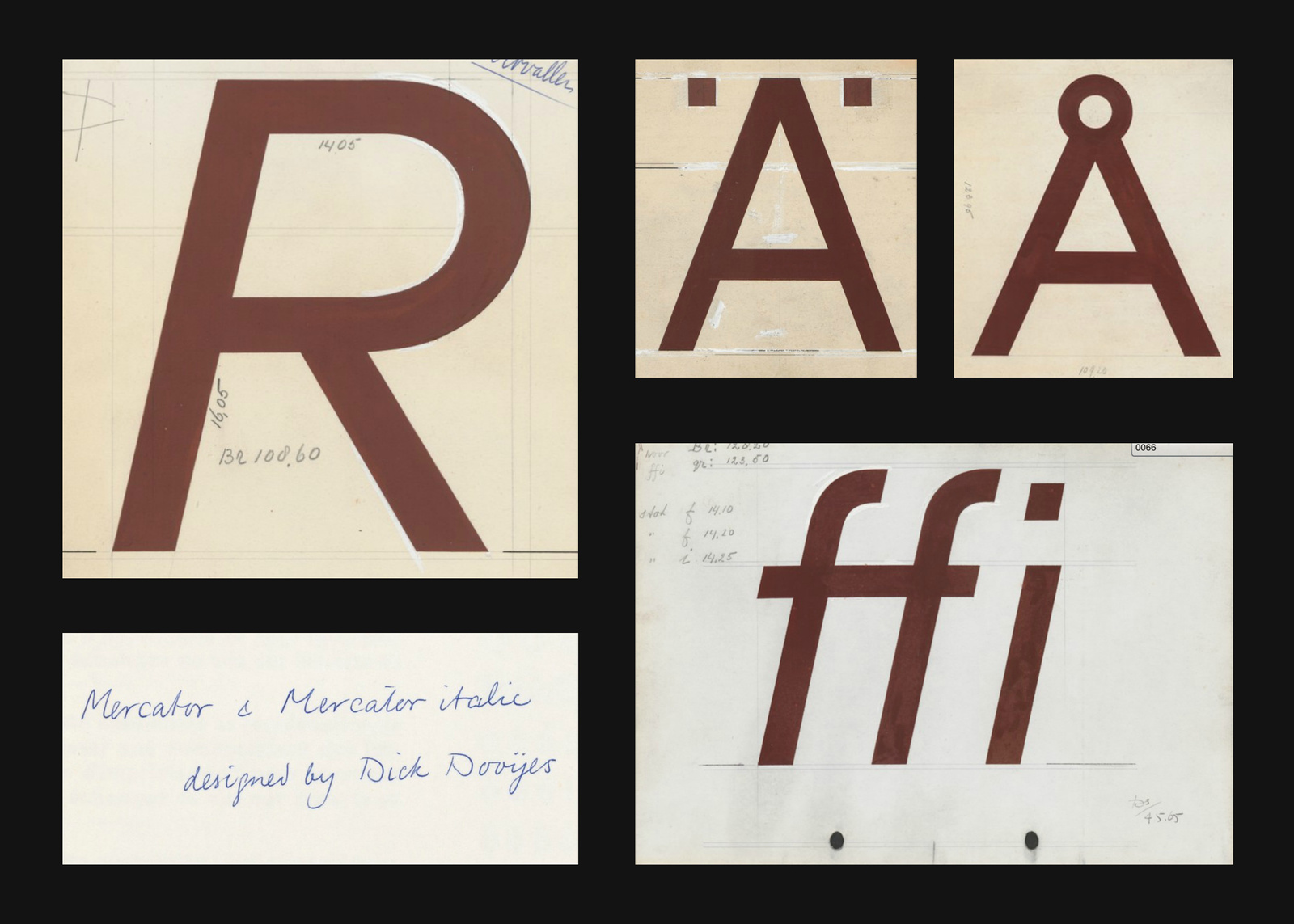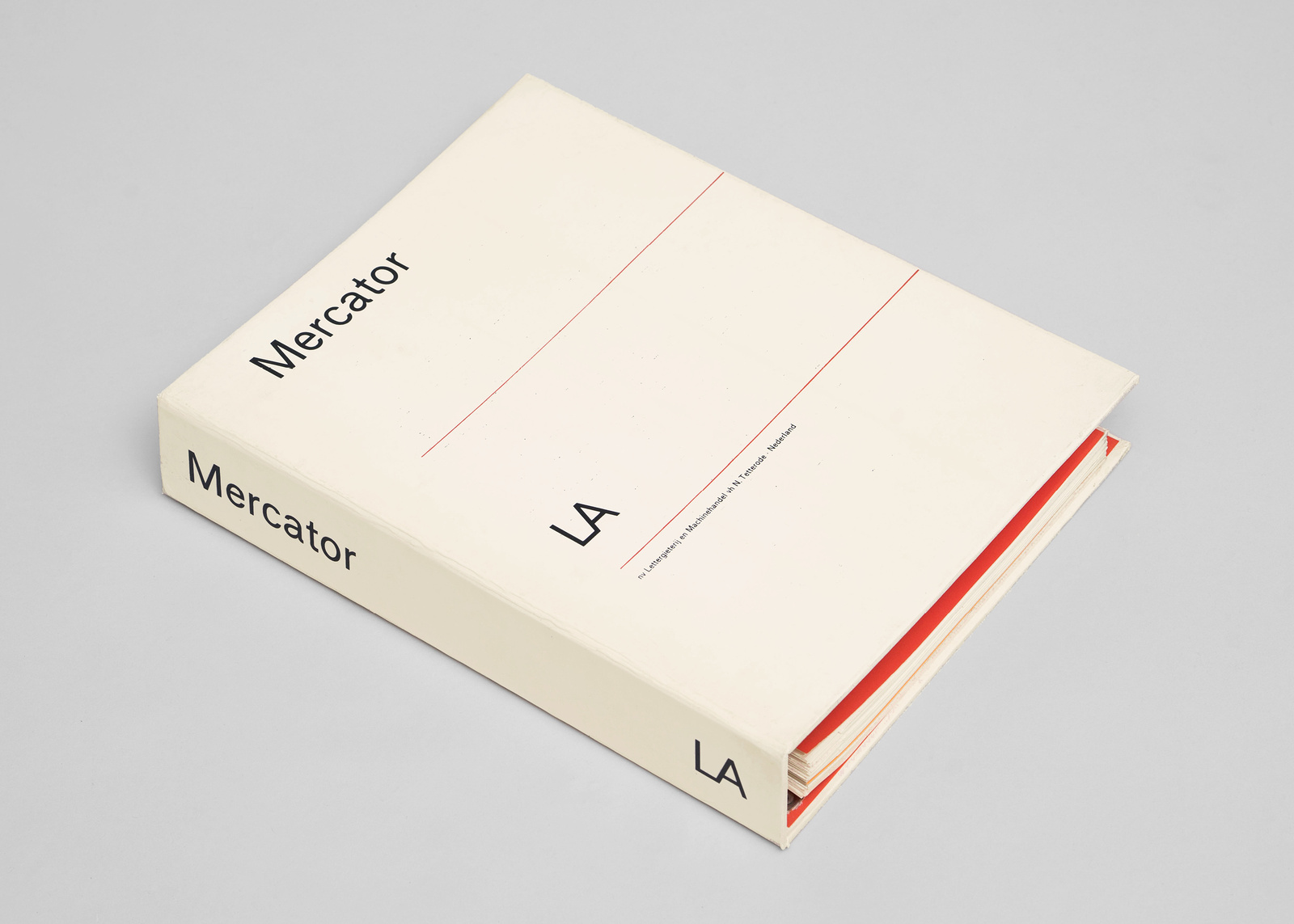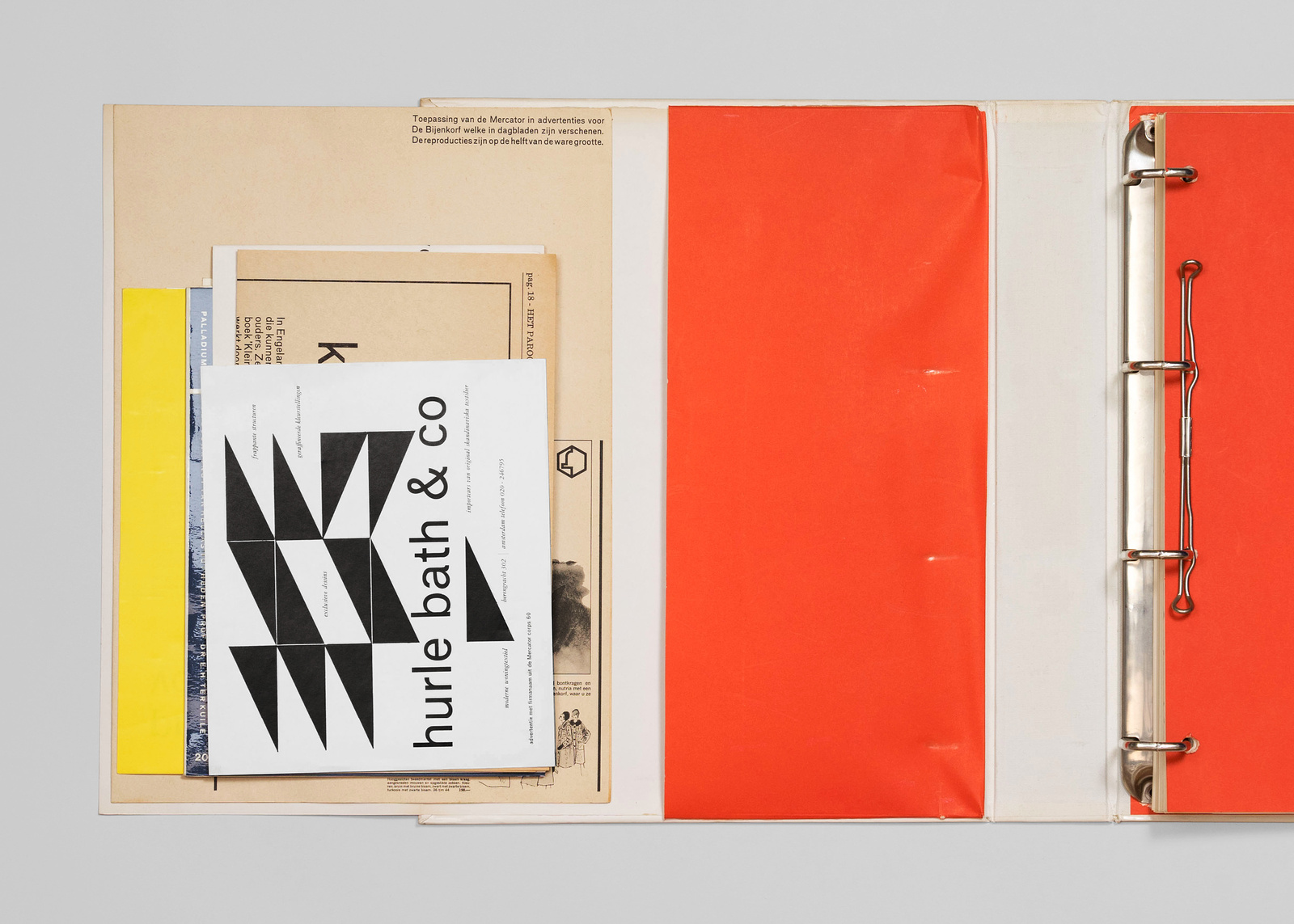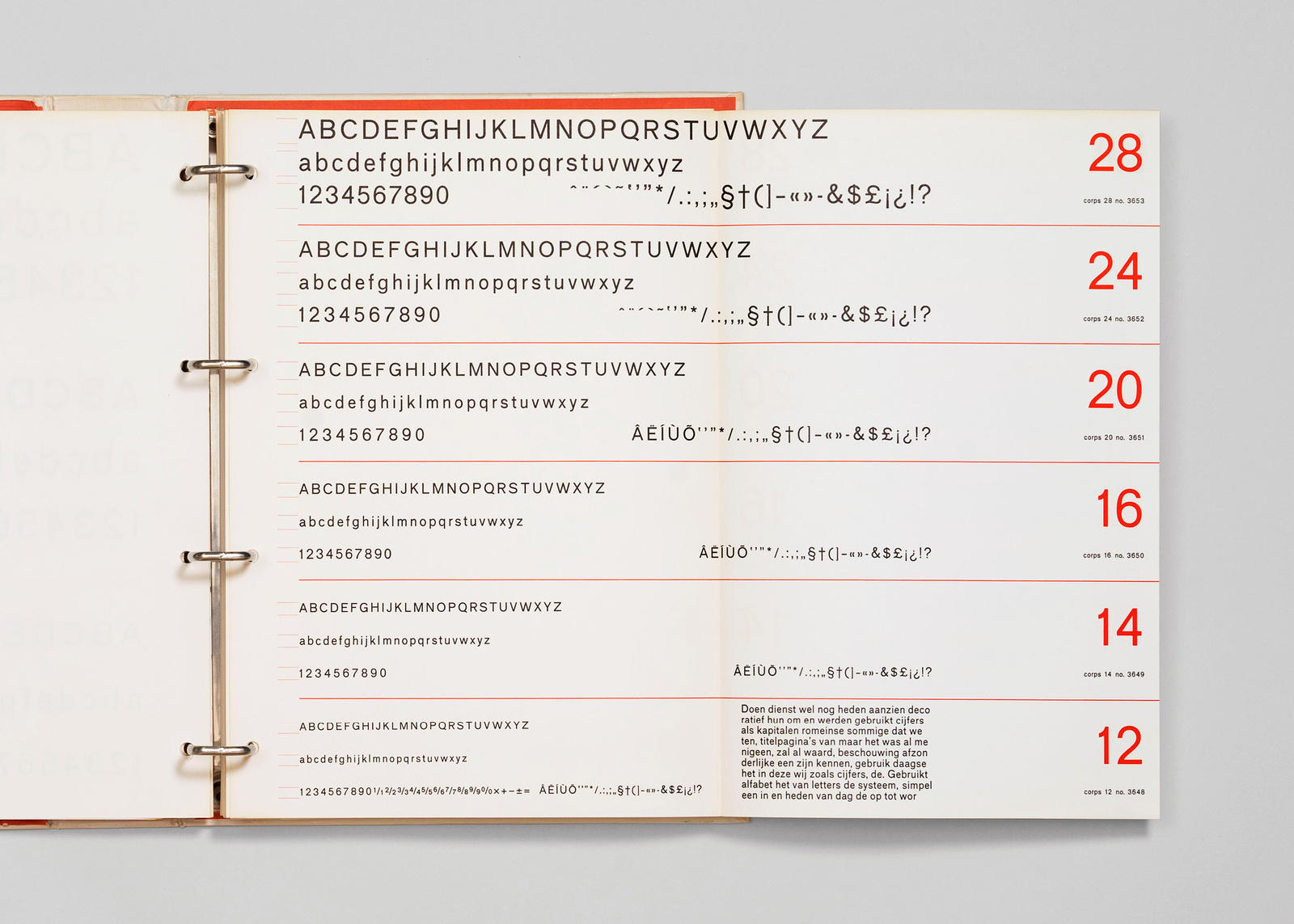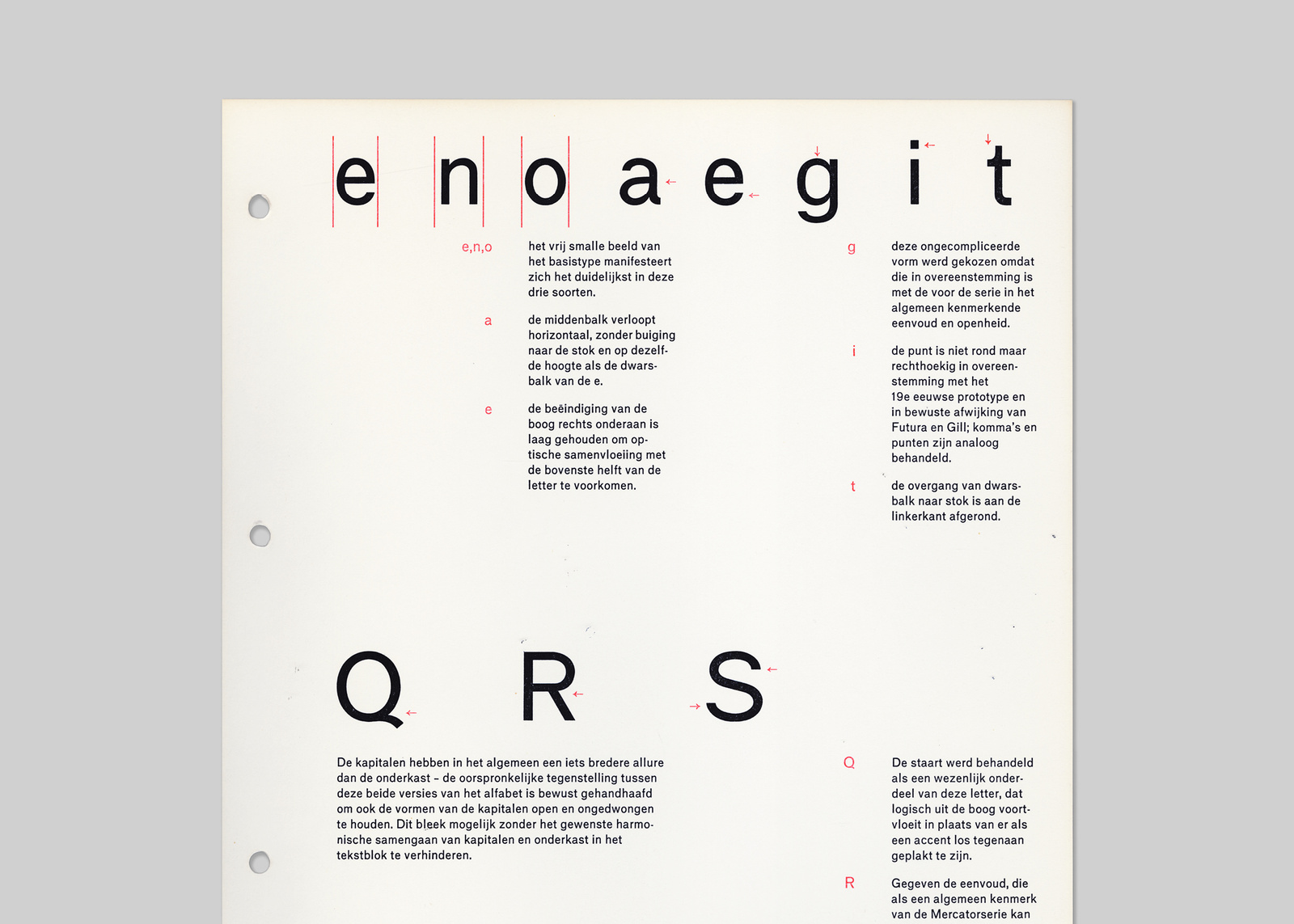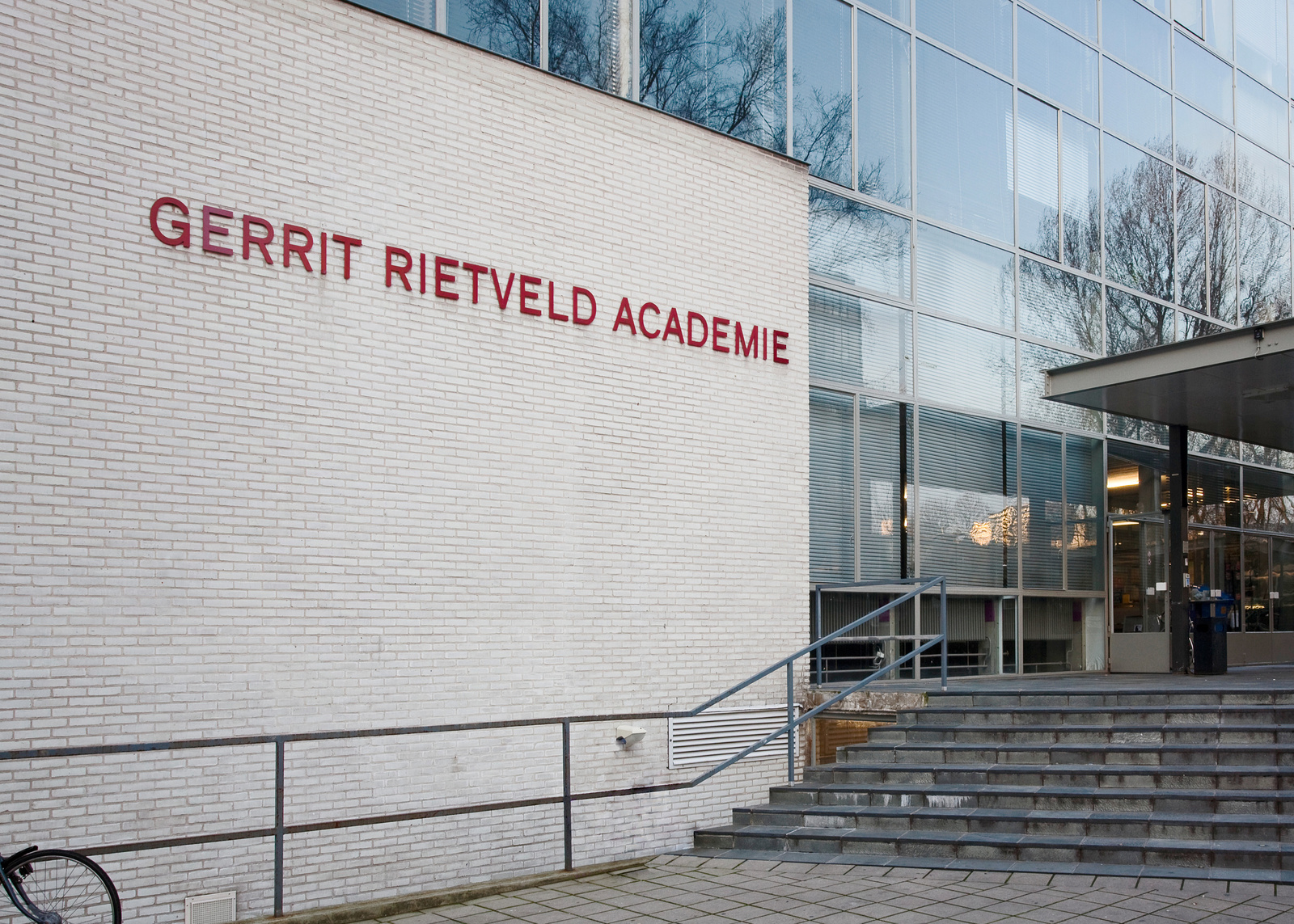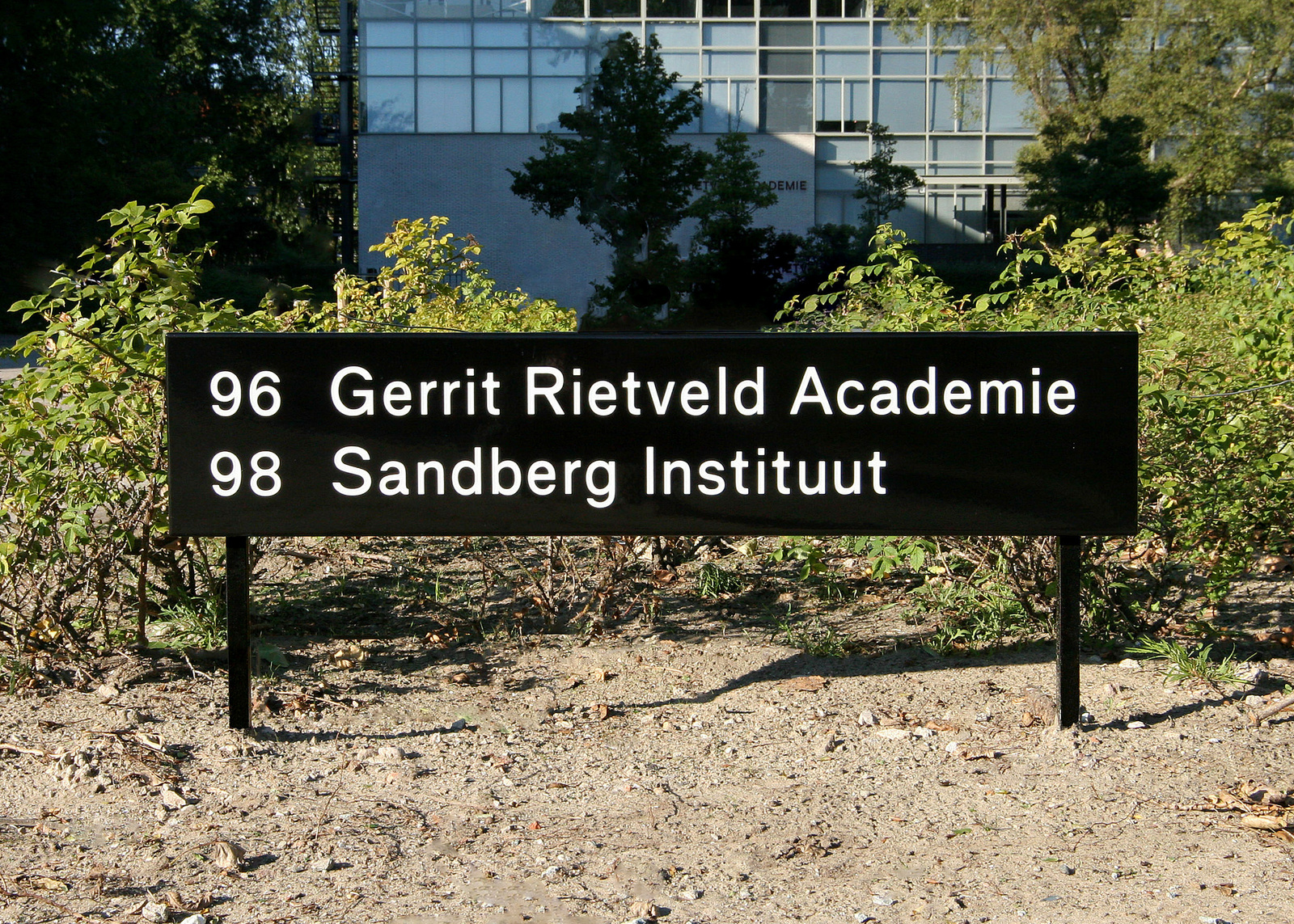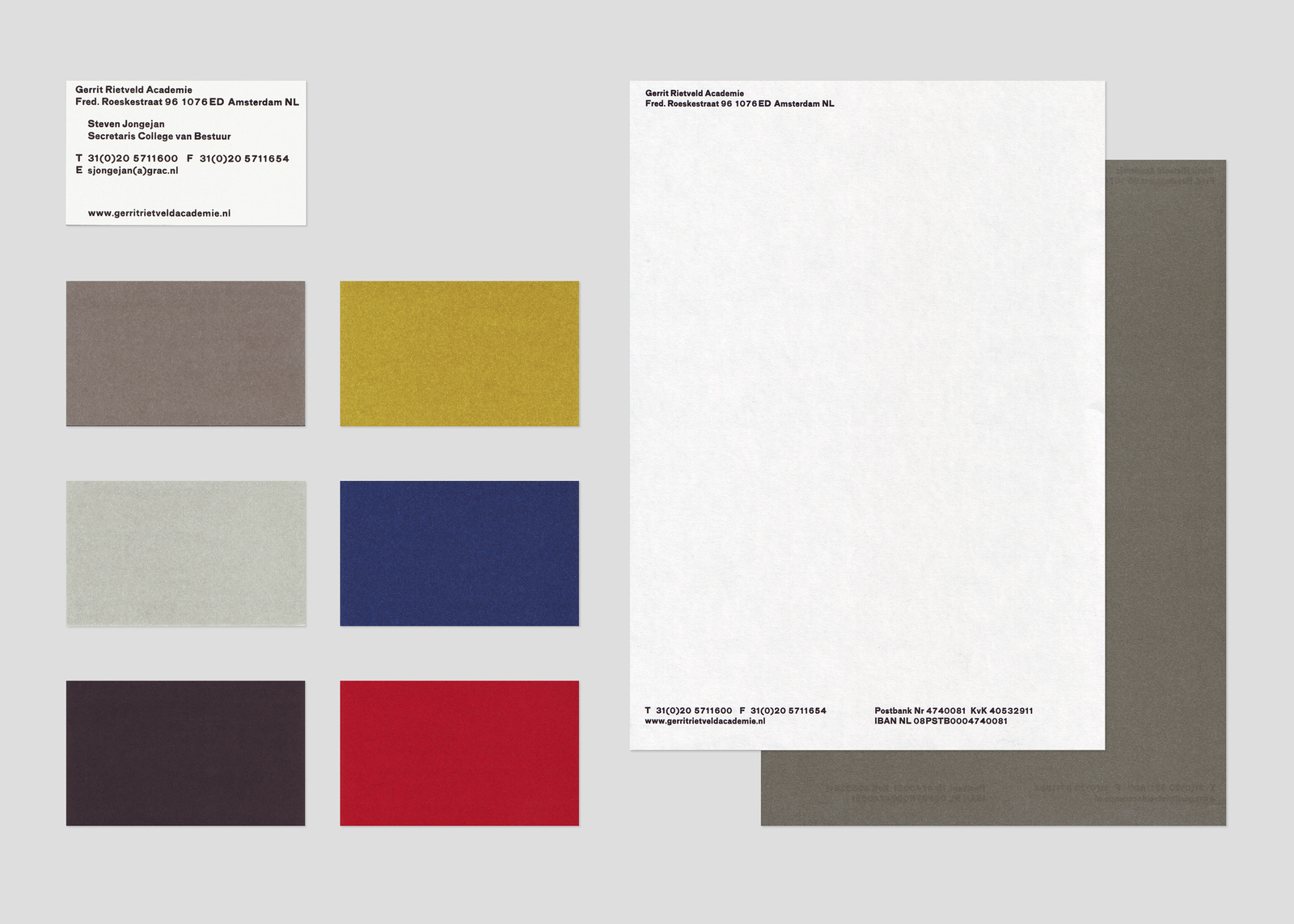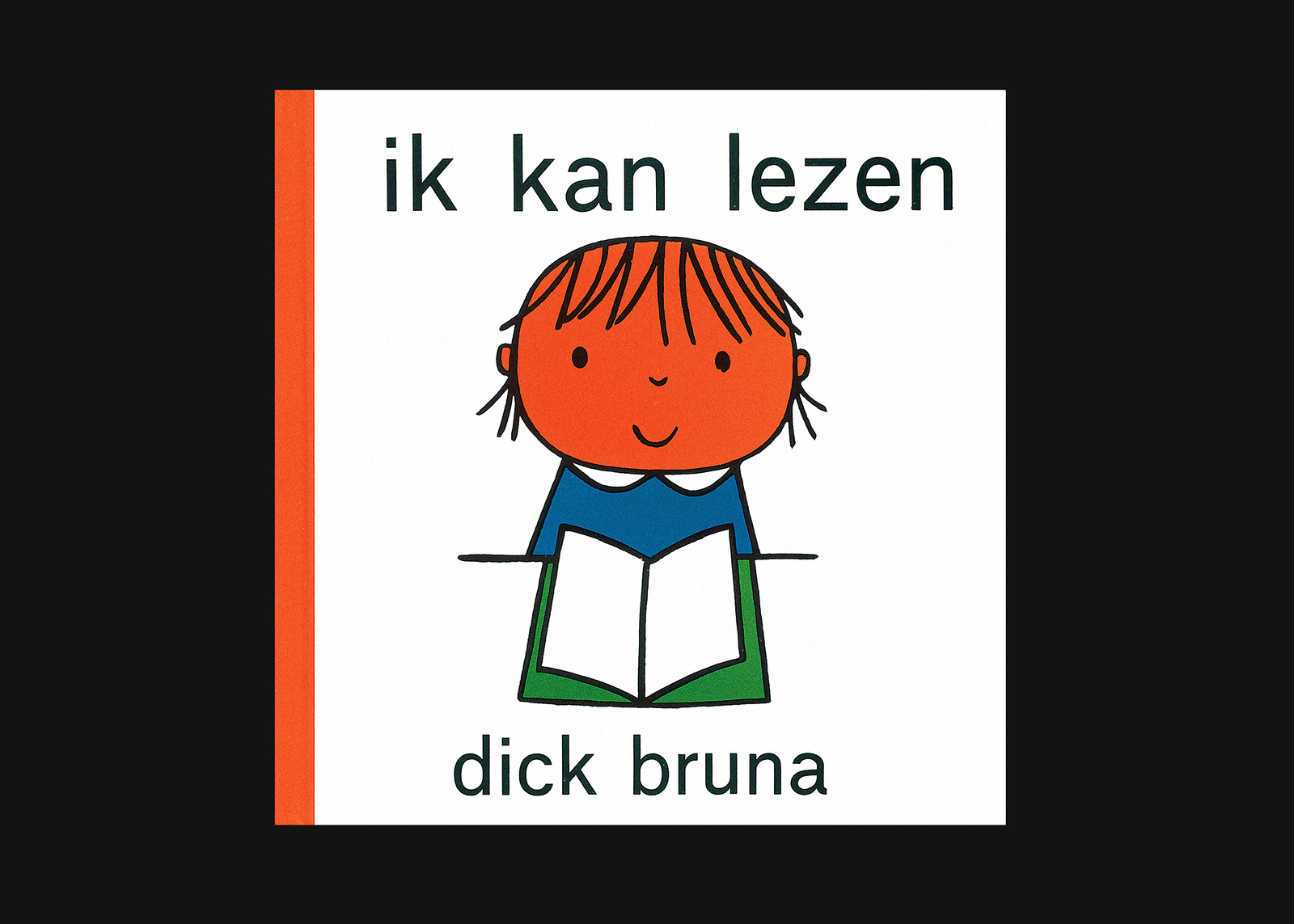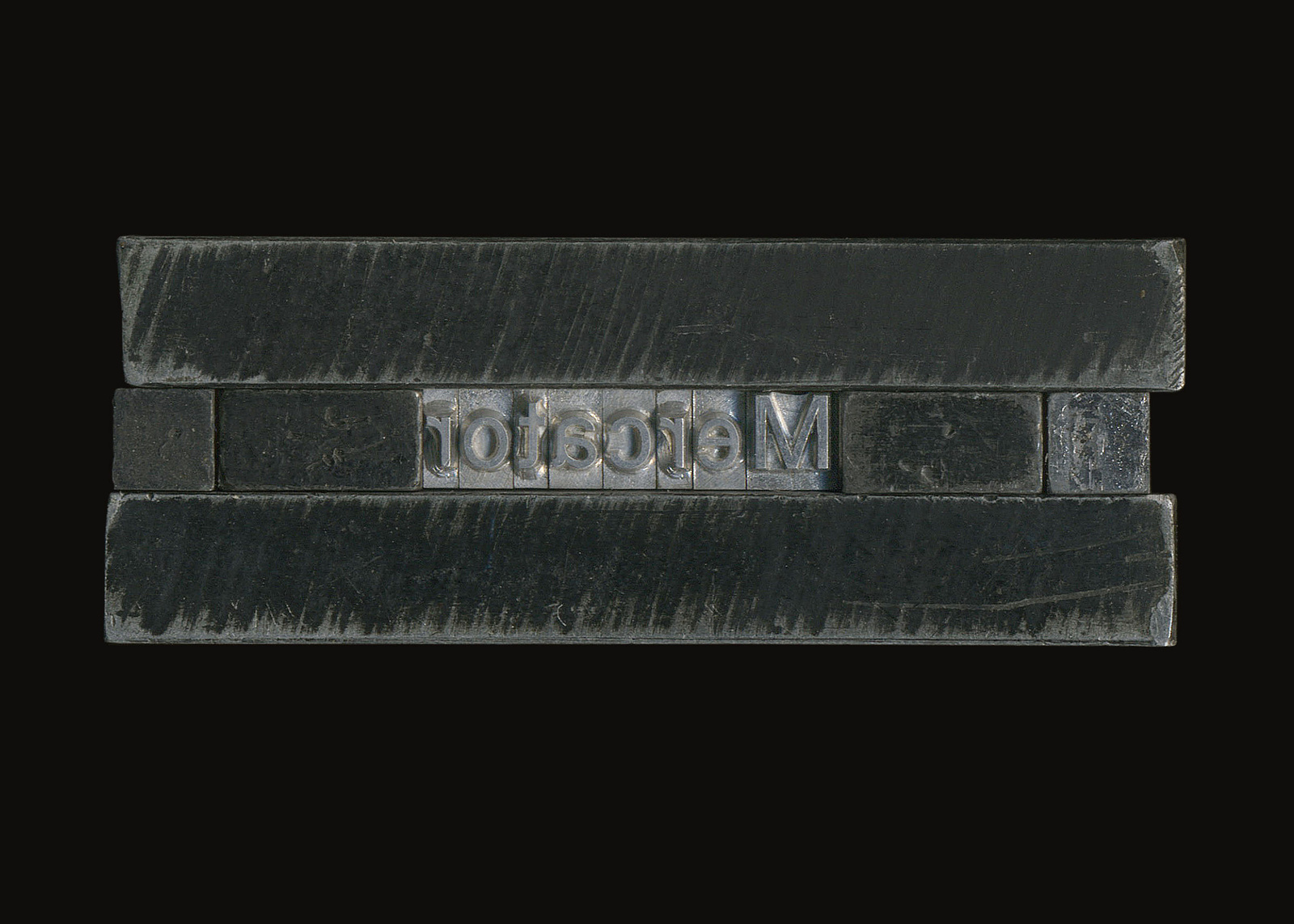
Don’t call it a comeback, Mercator has been here for years. Presenting an updated rendition of the Dutch classic, combining the early Modernist rigor of the Lowlands with the technical precision needed for today’s multi-media landscape.
Mercator traces its origins to 1958, when the Amsterdam Type Foundry (Lettergieterij Amsterdam previously Tetterode) commissioned designer Dick Dooijes to create a neo-grotesque competitor to the wildly successful Helvetica. Launching one year after the Swiss giant, Mercator arrived with high expectations, accompanied by an iconic specimen binder designed by Wim Crouwel. Despite its ambition, Mercator never reached the global prominence of Helvetica or Univers, and instead gained a cult following among a handful of in-the-know European designers.
In 2004, Laurenz Brunner discovered Mercator in the letterpress workshop at the Gerrit Rietveld Academie, where Dooijes had once served as director. Brunner began digitizing the typeface during his studies, using it modestly for personal projects, and later more formally for the school’s visual identity (designed by Alexander Shoukas) and Rietveld affiliated projects. Over the years, Mercator has occasionally resurfaced, with many designers quietly anticipating a full revival.
Mercator ST is designed by Laurenz Brunner and was first released by Source Type in 2025.
Letterpress lockup of Mercator 8pt, typeset at Archivio Tipografico, Torino
Original production proofs for Mercator (1958)
Mercator specimen by Lettergieterij Amsterdam, designed by Wim Crouwel (1964)
Page from the Mercator specimen by Lettergieterij Amsterdam, designed by Wim Crouwel (1964)
Signage set of the Gerrit Rietveld Academie, Amsterdam, set in Mercator
Identity for the Gerrit Rietveld Academie by Alexander Shoukas (2008)
Mercator in use for “ik kan lezen” by Dick Bruna (1965)